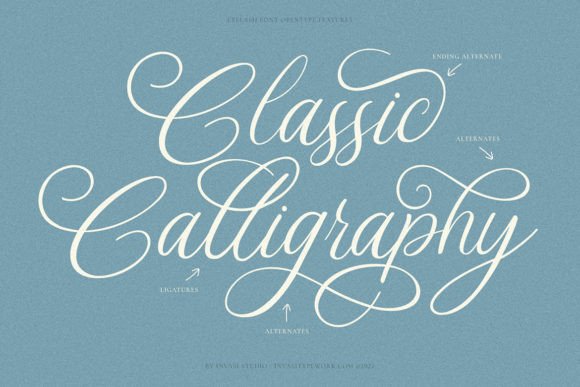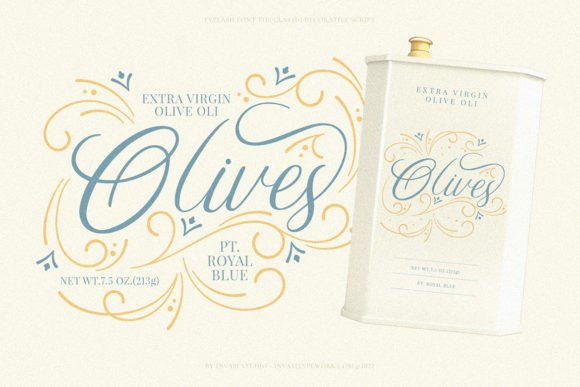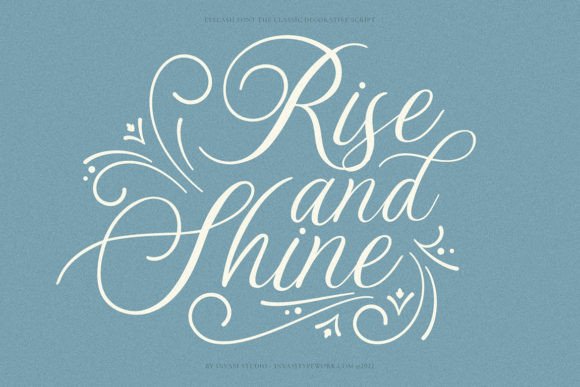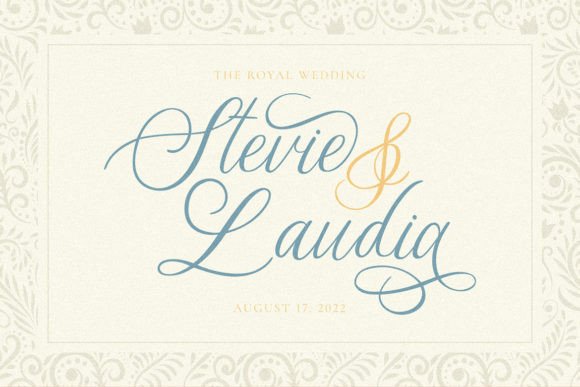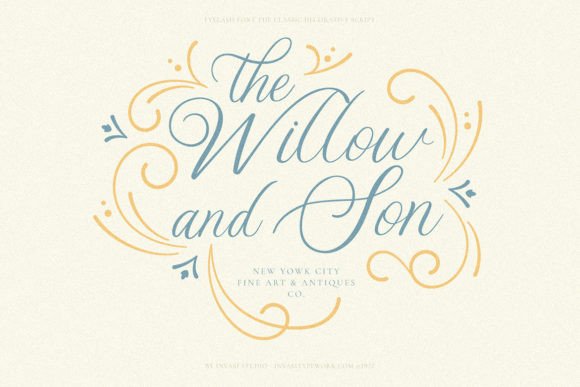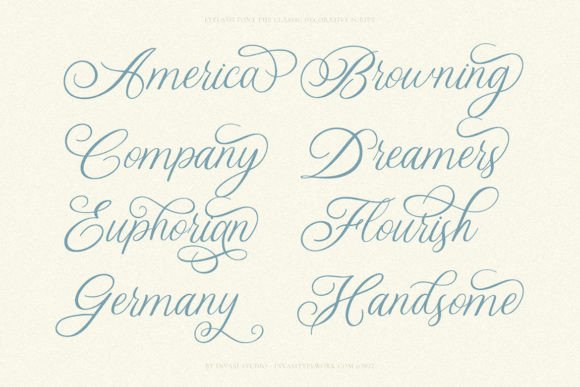
The Elegance of Eyelash Font: Elevate Your Designs with Classic Calligraphy
In the world of typography, few fonts capture the essence of elegance and sophistication as beautifully as the Eyelash Font. This stunning calligraphy script is a timeless choice for designers and crafters looking to add a touch of classic charm to their projects. With its distinctive curves, intricate details, and versatility, the Eyelash Font is an excellent addition to any design arsenal.
What is Eyelash Font?
The Eyelash Font is a beautiful, elegant, and classic calligraphy script that features distinctive curves at the start and end of its design. This font is meticulously crafted with both upper and lower-case engravings, offering a wide range of possibilities for creative expression. Whether you’re working on branding, logo design, wedding invitations, decorations, or any other project that requires a touch of sophistication, the Eyelash Font is an excellent choice.
Key Features of Eyelash Font
- Distinctive Curves: The font’s distinctive curves at the start and end of its design give it a unique and elegant appearance. These curves add a touch of sophistication to any project, making it perfect for high-end branding, wedding invitations, and more.
- Upper and Lower-Case Engravings: The Eyelash Font features both upper and lower-case engravings, providing a wide range of options for designers. This versatility makes it easy to create visually appealing text that is both elegant and easy to read.
Uses of Eyelash Font
The Eyelash Font is incredibly versatile and can be used in a variety of design projects, including:
- Branding: Add a touch of elegance to your brand’s identity with the Eyelash Font. Its sophisticated appearance makes it perfect for luxury brands, high-end products, and services.
- Logo Design: Create a stunning logo that stands out from the crowd with the Eyelash Font. Its unique curves and intricate details make it an excellent choice for logos that require a touch of sophistication.
- Wedding Invitations: Make your wedding invitations truly special with the Eyelash Font. Its elegant appearance and classic charm make it perfect for wedding-related designs, including invitations, decorations, and more.
- Decorations: Add a touch of elegance to your decorations with the Eyelash Font. Its sophisticated appearance makes it perfect for creating beautiful wall art, signs, and other decorative items.
Tips for Using Eyelash Font
To get the most out of the Eyelash Font, here are a few tips to keep in mind:
- Pair with Simple Fonts: Pair the Eyelash Font with simple fonts to create a striking contrast. This will help to make your design stand out and prevent the font from becoming overwhelming.
- Use for Headings: Use the Eyelash Font for headings and titles to add a touch of elegance to your design. Its sophisticated appearance makes it perfect for grabbing attention and creating a lasting impression.
- Experiment with Colors: Experiment with different colors to find the perfect match for your design. The Eyelash Font looks stunning in metallic colors, pastels, and rich jewel tones.
The Eyelash Font is a beautiful, elegant, and classic calligraphy script that is perfect for designers and crafters looking to add a touch of sophistication to their projects. With its distinctive curves, intricate details, and versatility, this font is an excellent addition to any design arsenal. Whether you’re working on branding, logo design, wedding invitations, decorations, or any other project that requires a touch of elegance, the Eyelash Font is an excellent choice.